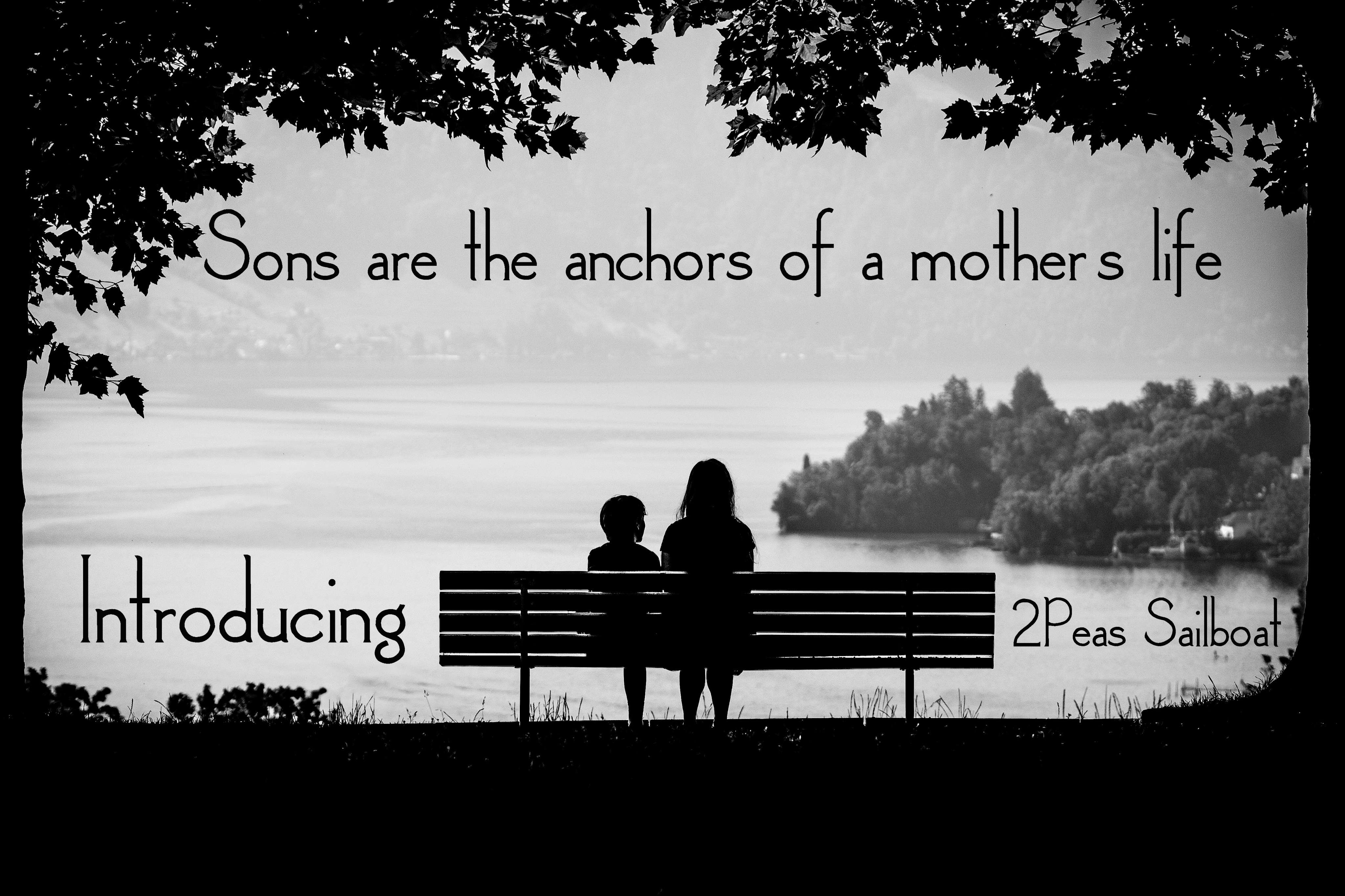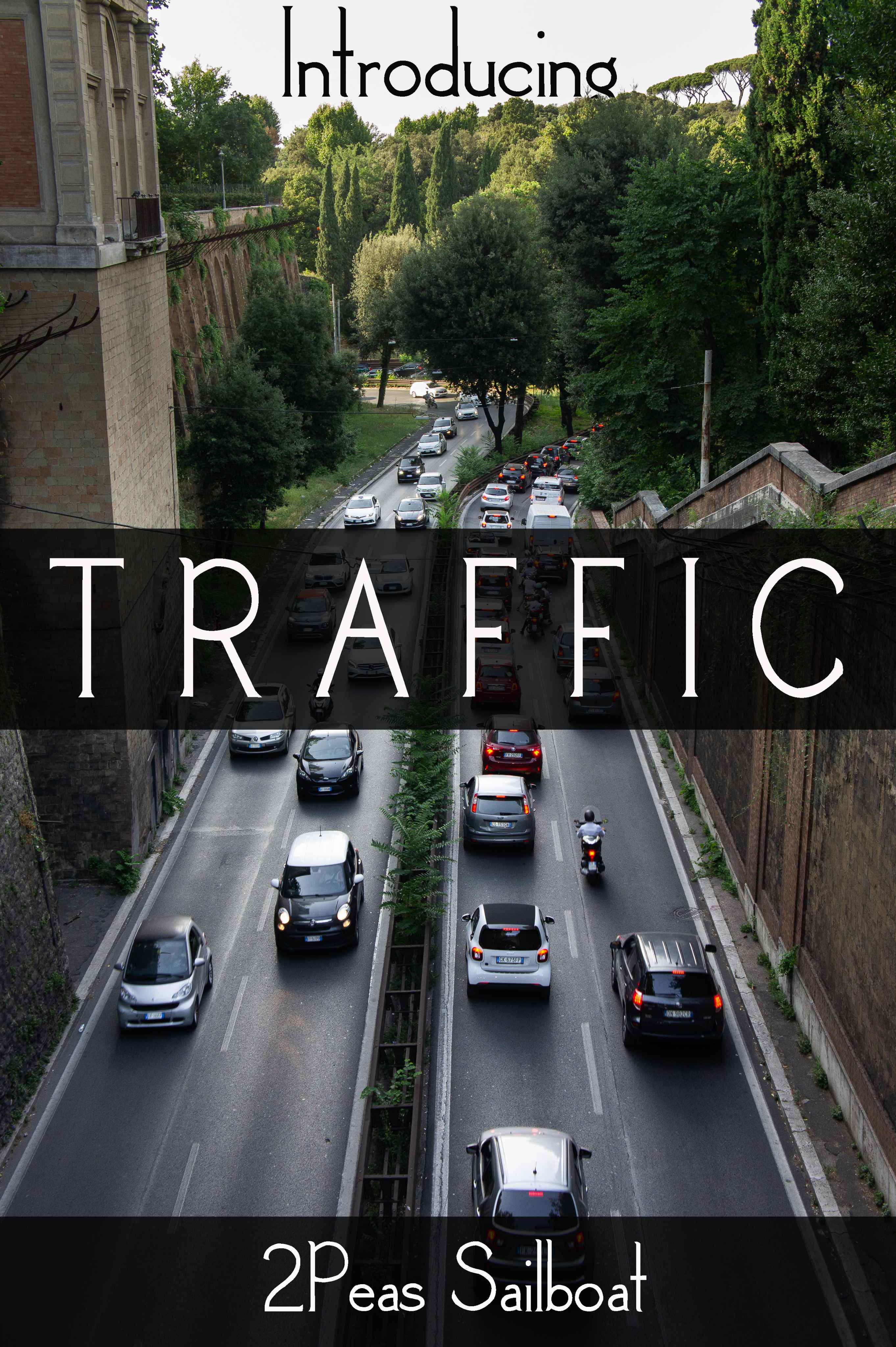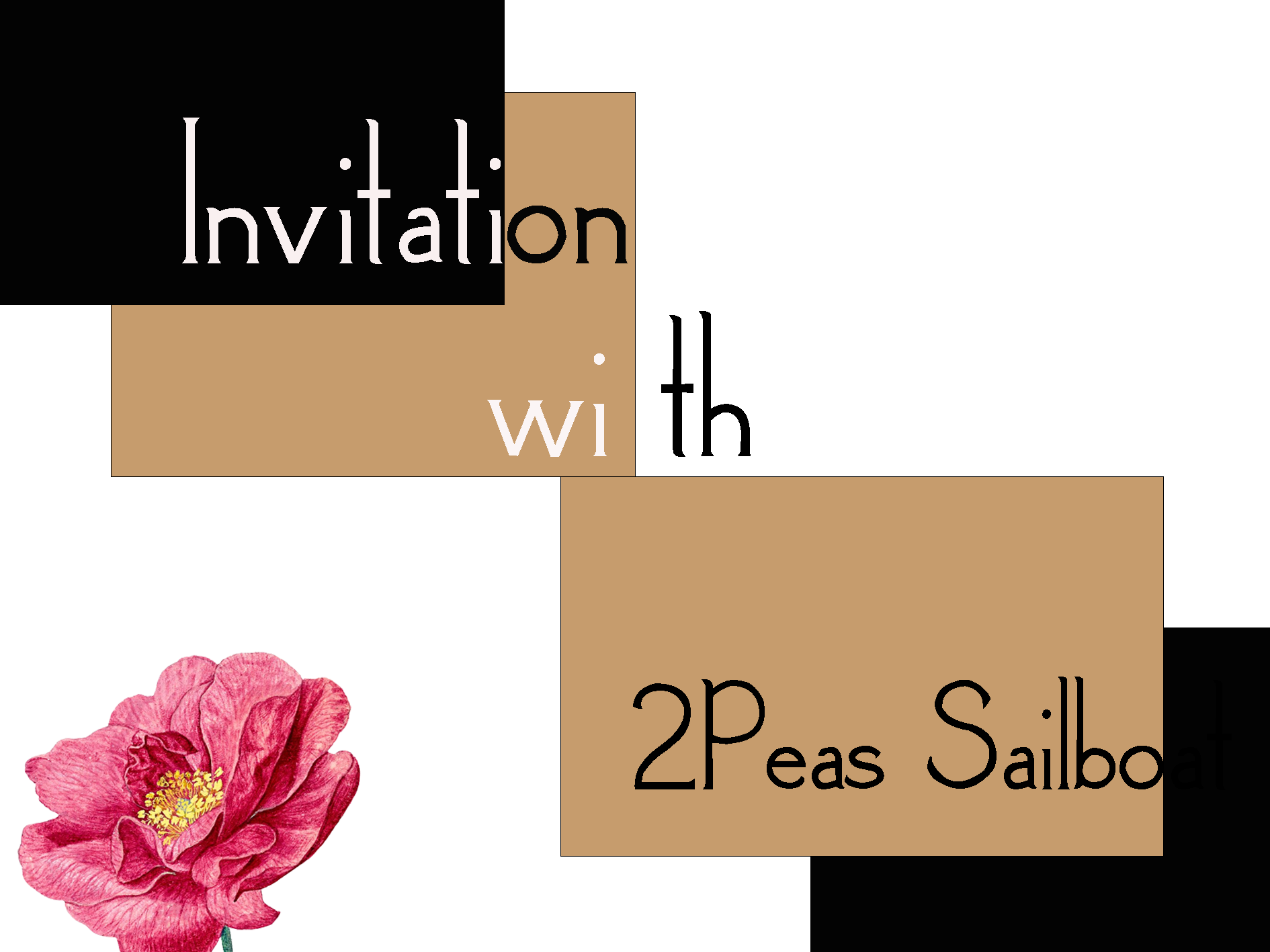
The 2Peas Sailboat font is a fun and playful font that is perfect for all your creative projects. It is available in the Regular subfamily, which means that it has a simple and straightforward appearance.